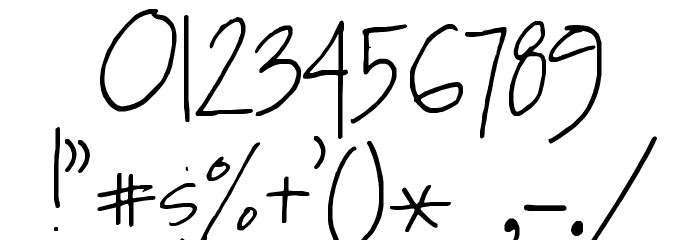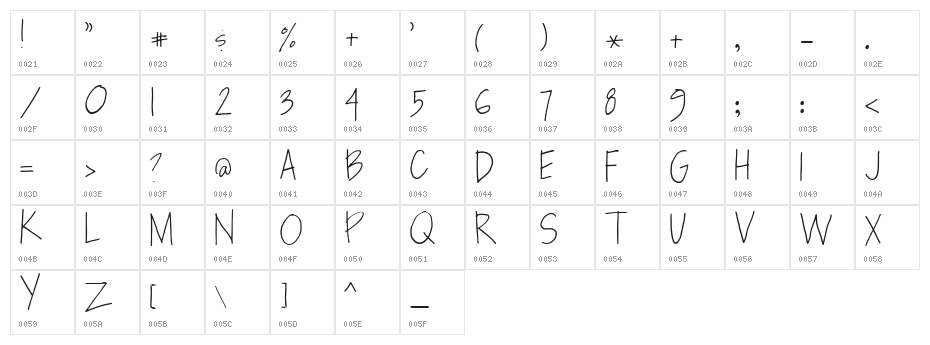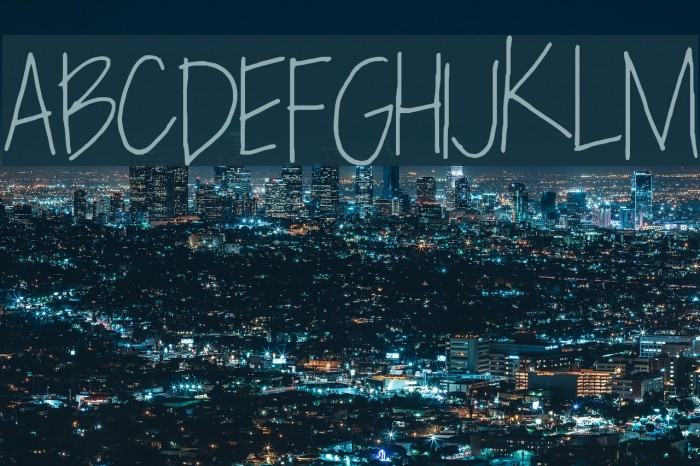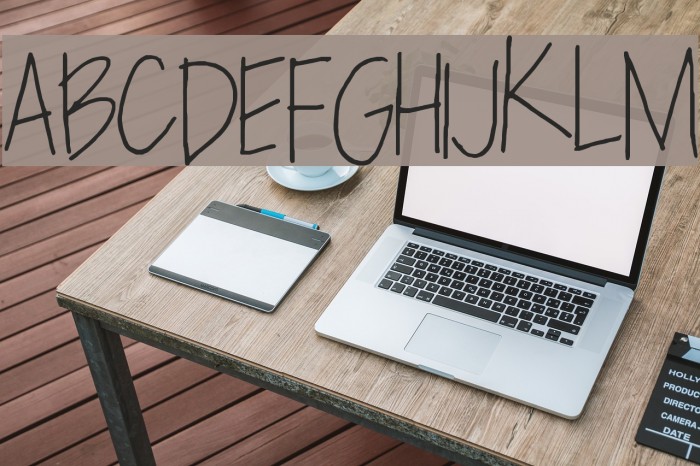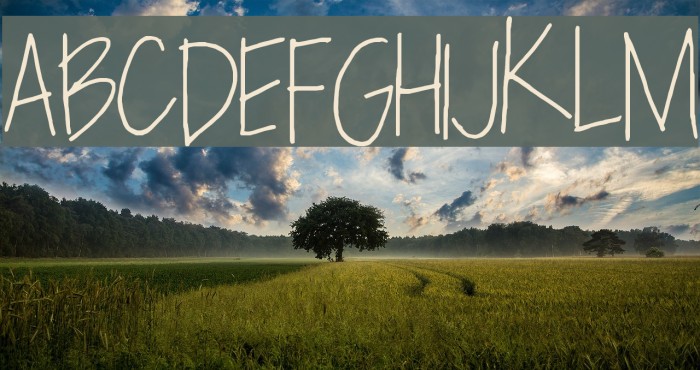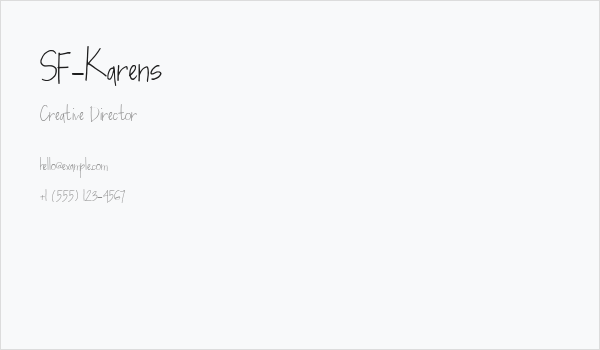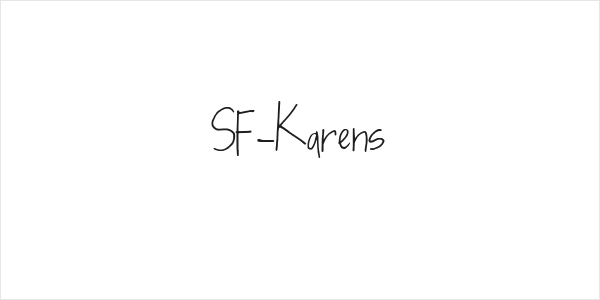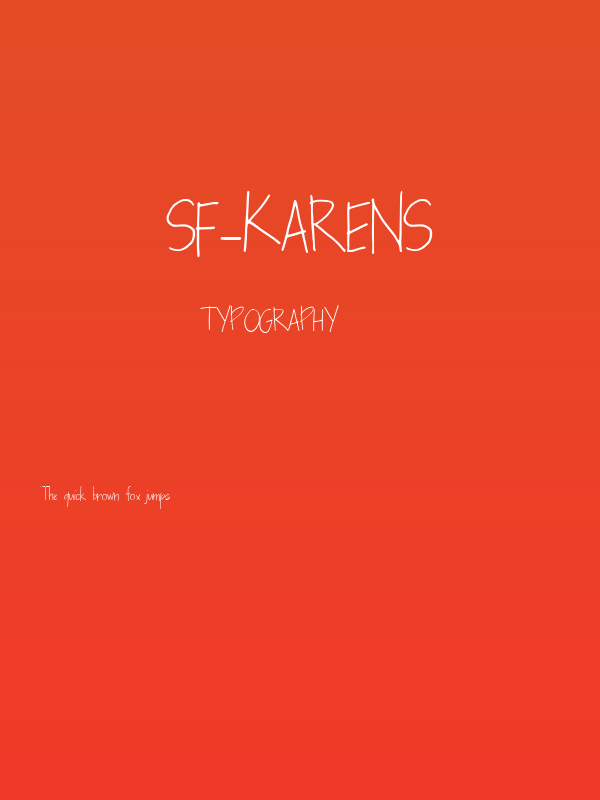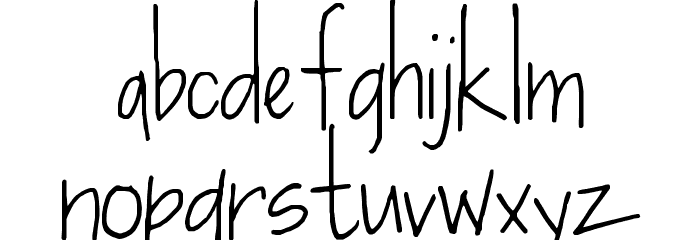
SF-Karens Font
SF-Karens Description
This font features a playful and casual handwritten style, characterized by its irregular strokes and informal appearance. The letters are slightly slanted, giving them a dynamic and lively feel. The uppercase letters are tall and narrow, while the lowercase letters maintain a consistent flow, enhancing readability. The numbers and special characters follow the same informal style, making them suitable for creative and fun projects. The overall look is friendly and approachable, perfect for designs that aim to convey a personal touch.